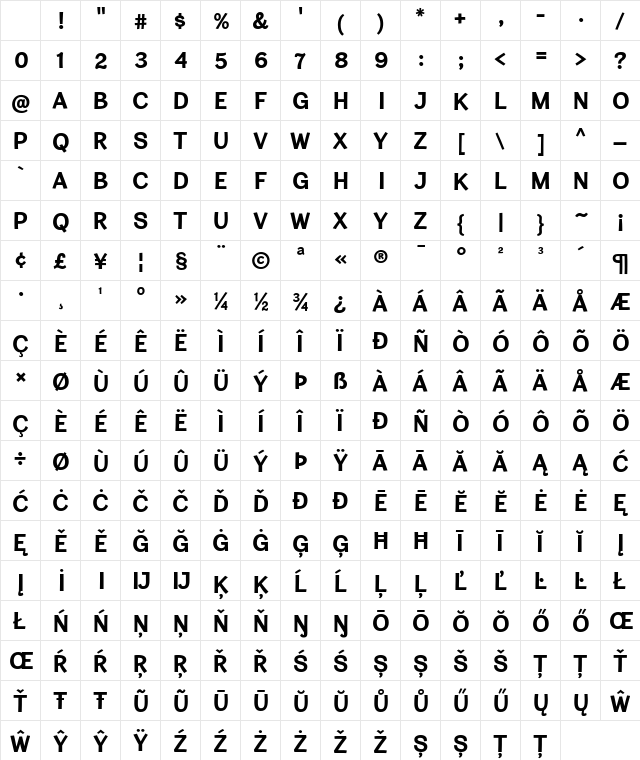
Complete Cardigan Titling Bold glyph index. Displaying only characters natively supported by Cardigan Titling Bold font.
Cardigan Titling is a composed and adaptable typeface that performs quietly and consistently across a wide range of design contexts. Its bold stroke weight gives it real presence on the page.